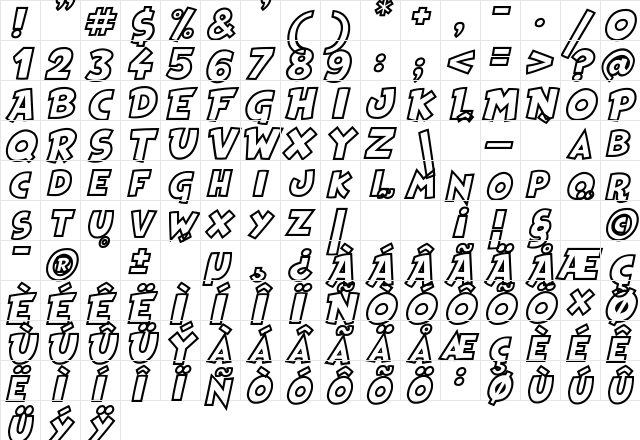
Heroes Legend Hollow Regular
| Designer | IMAGEX |
Design Context for Heroes Legend Hollow Typeface
Heroes Legend Hollow is a composed and adaptable typeface that performs quietly and consistently across a wide range of design contexts.